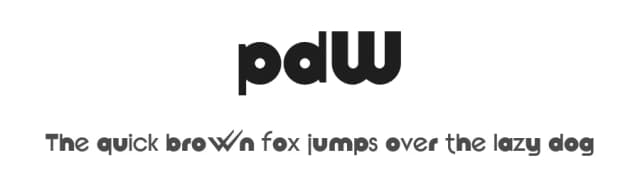
About Costa Rica Font
Costa Rica is a sans-serif font designed by Rafael Ferran i Peralta. It includes 421 glyphs, a black weight, OTF (CFF) format, and 248 languages. Costa Rica is free to download; check the license details on this page before commercial use. Sans-serif fonts like Costa Rica work best for clean body text, user interfaces, branding, and modern layouts.
- Heavy, Clean, Modern, Basic
Costa Rica Font is a versatile sans-serif font that works for both headings and body text. Pair it with a contrasting serif or slab serif font to add visual interest and a clear distinction between titles and body copy.